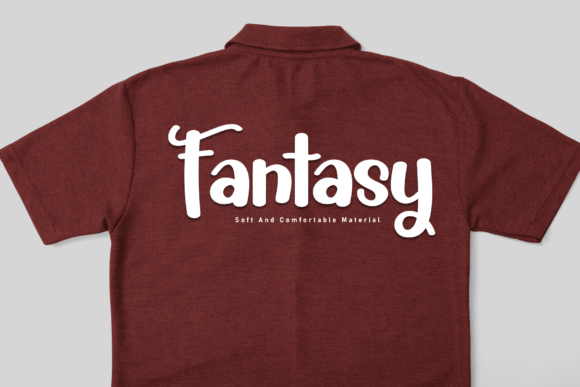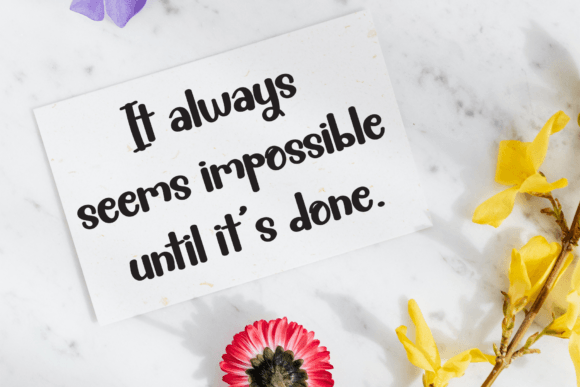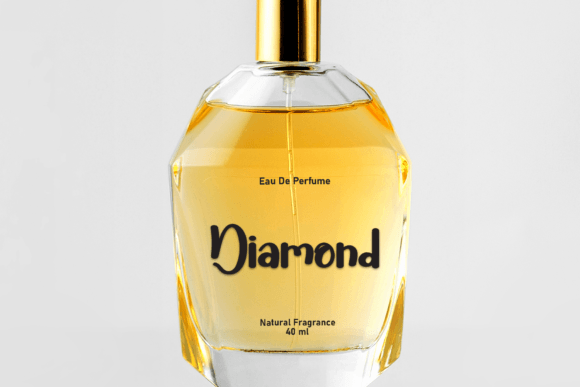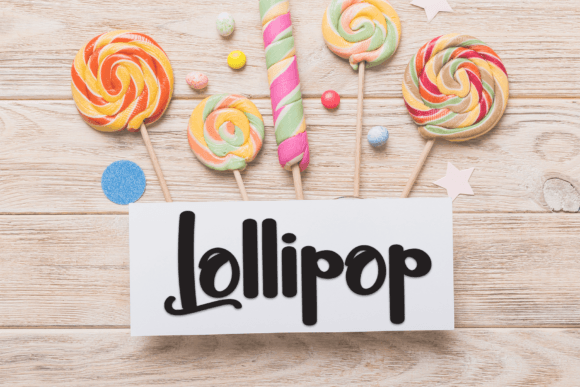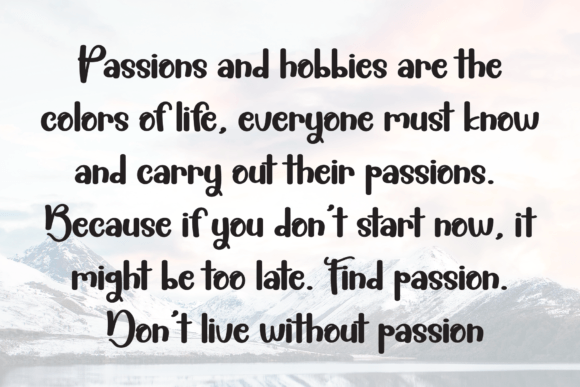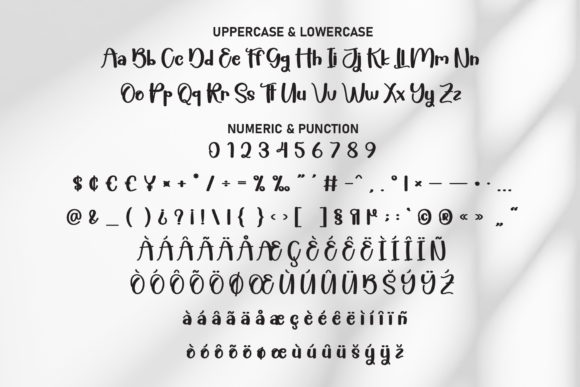
Introduction to Moonoline Font Font
Fonts play a crucial role in design, and the Moonoline Font font is a typeface that brings both character and versatility to any project. Whether you’re working on a branding project, a website, or a print design, the Moonoline Font font offers a unique style that can elevate your work.
Moonoline is a bold, handwritten font with a lively and unique style.
Its thick strokes and playful curves make it stand out, perfect for adding a personal touch to your designs .
Key Features of Moonoline Font Font
Why Choose Moonoline Font Font?
The Moonoline Font font is more than just a typeface – it’s a design tool that helps you communicate your message with style and clarity. Its unique character set and versatile design make it suitable for a wide range of applications, from elegant invitations to bold headlines.
With its carefully crafted letterforms and balanced proportions, the Moonoline Font font ensures readability and visual appeal across all mediums.
What makes Moonoline Font font special?
The Moonoline Font font stands out with its unique design, exceptional readability, and versatility across various design applications.